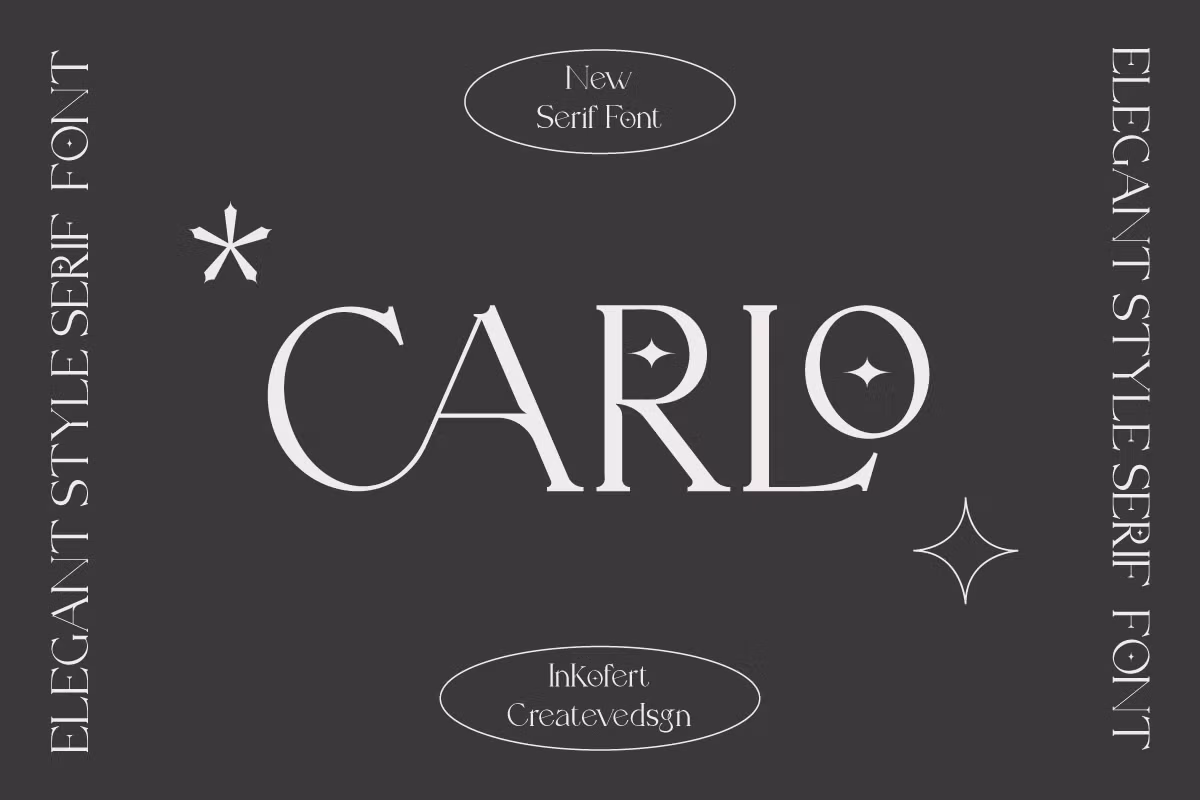
Carlo Elegant Serif Font Free Download
The Carlo Elegant Serif Font Free Download is a refined and sophisticated typeface that blends classic serif elements with modern elegance. Perfect for luxury branding, editorial design, invitations, and upscale product packaging, this font adds a touch of grace and timeless style to any project.
With its clean lines, sharp serifs, and high contrast between thick and thin strokes, Carlo offers both readability and visual appeal. It includes uppercase and lowercase letters, numbers, punctuation, and multilingual support, ensuring versatility across a range of creative applications.